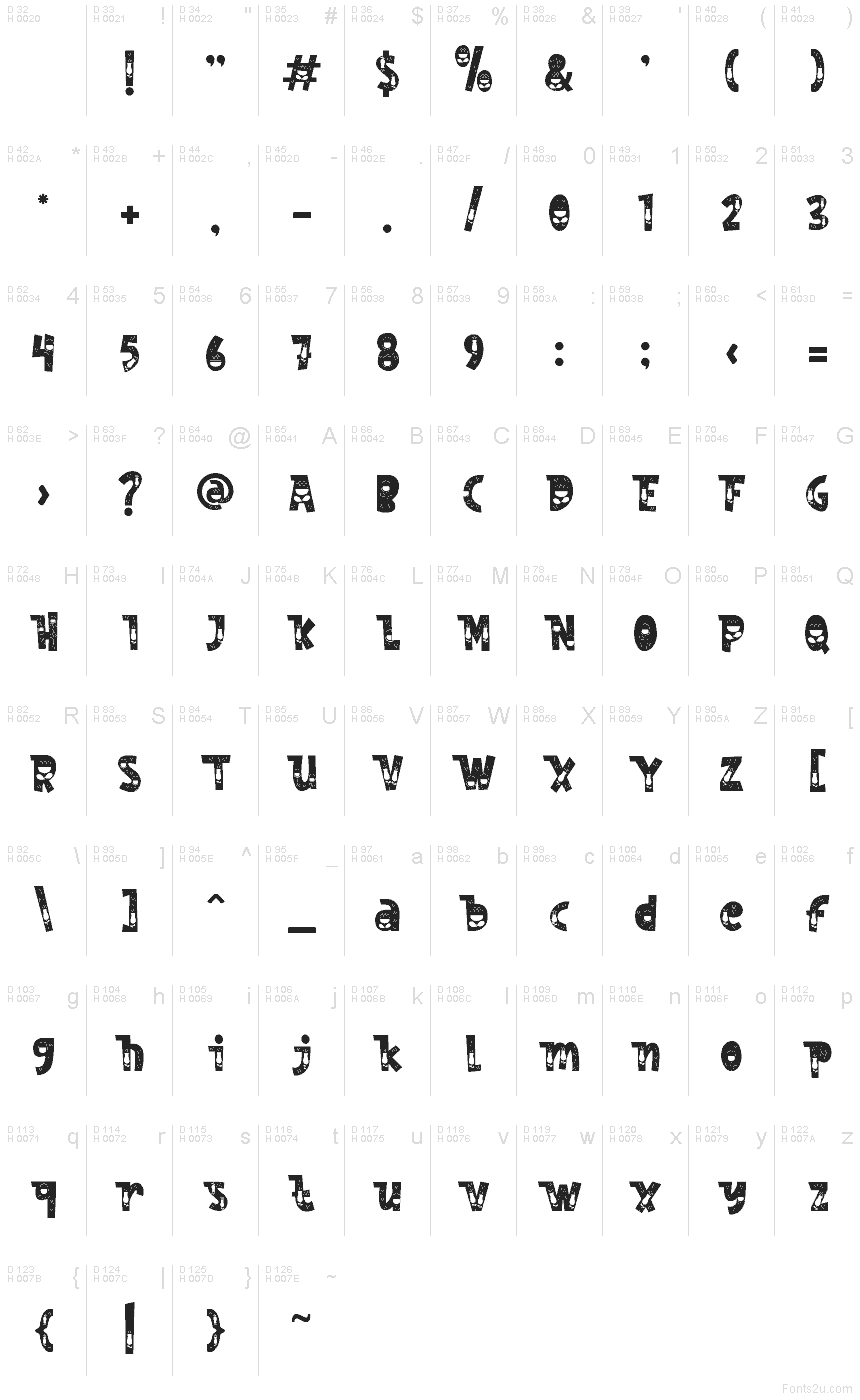
Nordic Whimsy One
Nordic Whimsy One font by PutraCetol Studio is a whimsical display font with intricate decorative patterns. The bold style gives it a quirky flare with artistic elements such as floral motifs and ornament-like strokes in each letter. There is an overall playful and magical aspect to the typeface which can be further beautified if paired with suitable graphics.
This free decorative display font can be used upon creating headings, logos, packaging designs, posters, book covers, apparel designs, digital paintings or artworks, animation films or title sequences, album covers for music bands/performers’ albums – especially one that has a Nordic theme.